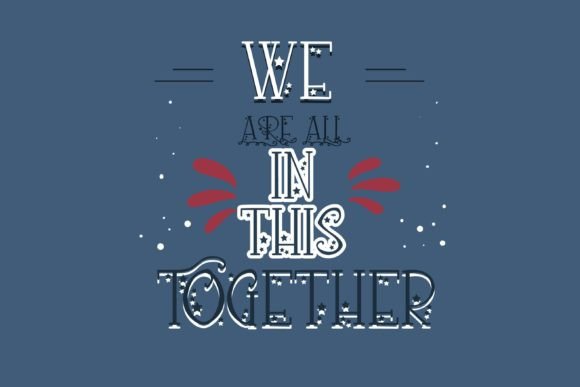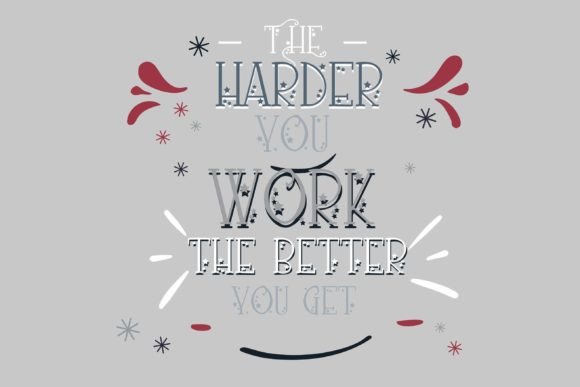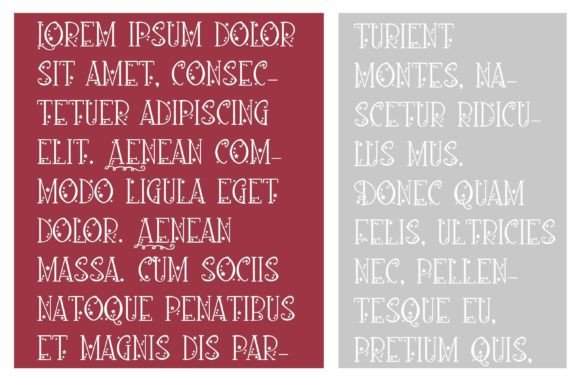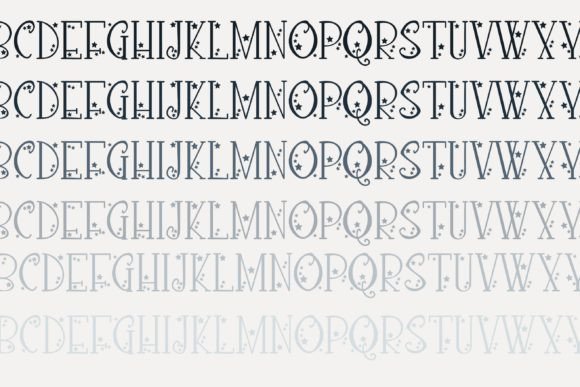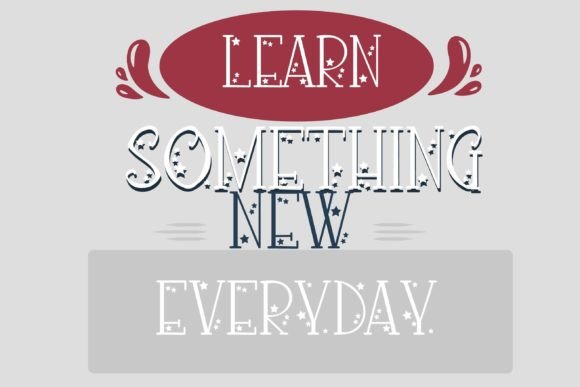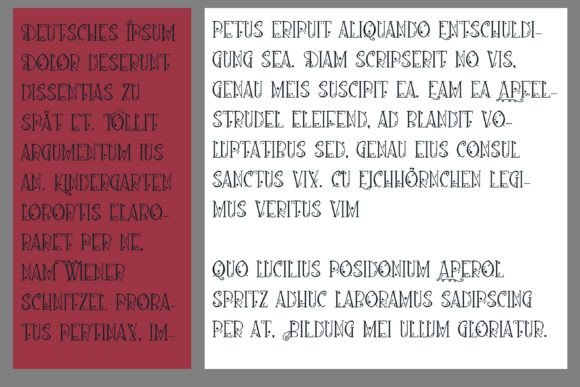
Introduction to Loquacious Liberation Font
Have you ever found yourself in a creative rut, staring blankly at a blank page, searching for the perfect font to bring your design to life? That’s exactly where I was when I stumbled upon the Loquacious Liberation Font. Its whimsical, hand-written style and intricate flourishes had me hooked from the very first glance.
With its star-studded serifs and elegant curves, the Loquacious Liberation Font is a game-changer for designers looking to add a touch of personality to their projects. Whether you’re working on a poster, greeting card, or branding material, this font is sure to make your message stand out.
Key Features of Loquacious Liberation Font
- High-quality, unique typography design perfect for creative projects and design resources.
- Comes with a transparent background, making it ideal for overlaying on images or videos.
- Available in 6 different font styles, each with its own distinct personality and flair.
- Each font style is carefully crafted with a resolution of 300 DPI, ensuring crisp and clear typography.
- Perfect for use in digital and print media, including logos, posters, and advertising materials.
Honest Review: Loquacious Liberation Font
I recently stumbled upon the Loquacious Liberation Font while searching for a free design resource for my creative project. At first glance, I was impressed by its high quality and unique style.
- ✨ The font’s transparent background allows for seamless integration into various design elements.
- ✨ It offers a great balance between elegance and playfulness, making it suitable for a wide range of creative projects.
- ⚠️ The font’s character set is limited, which may not be suitable for complex or lengthy text-based projects.
- ⚠️ The font’s style, while unique, may not be to everyone’s taste.
Overall, I’m impressed by the Loquacious Liberation Font’s potential and versatility. While it may have its limitations, it’s a great addition to any designer’s toolkit. I’d definitely recommend it for small to medium-sized creative projects where its unique style can shine.
Use the transparent background feature to create stunning effects in your designs. Experiment with different font sizes and colors to achieve the desired look.
The Loquacious Liberation Font is perfect for:
- Creating eye-catching titles and headings
- Designing unique logos and branding materials
- Adding a touch of personality to your digital art